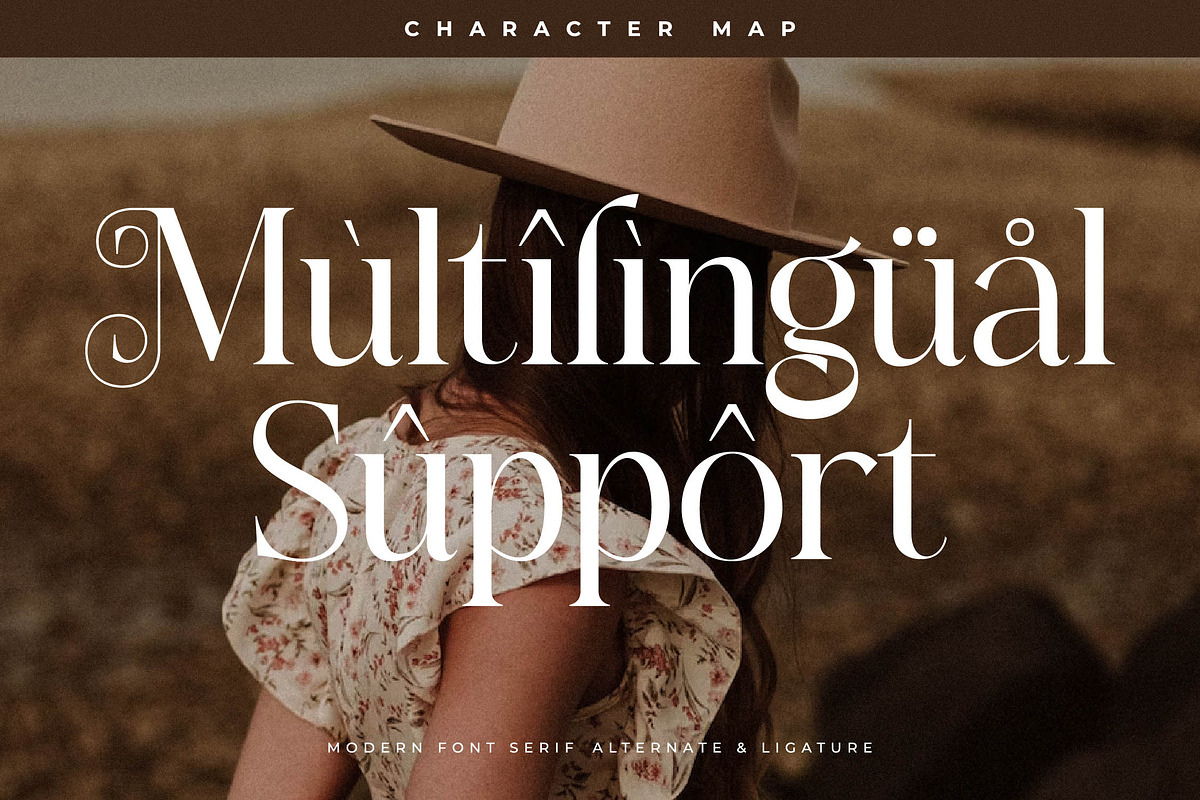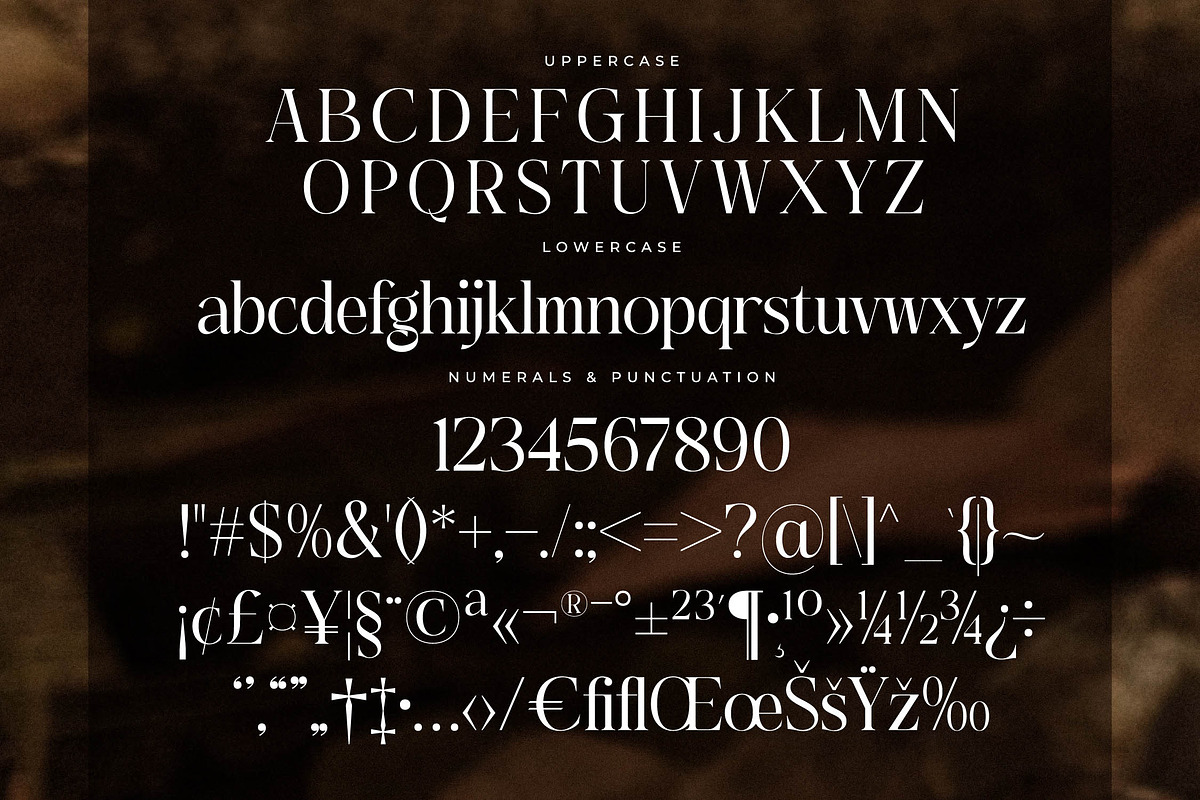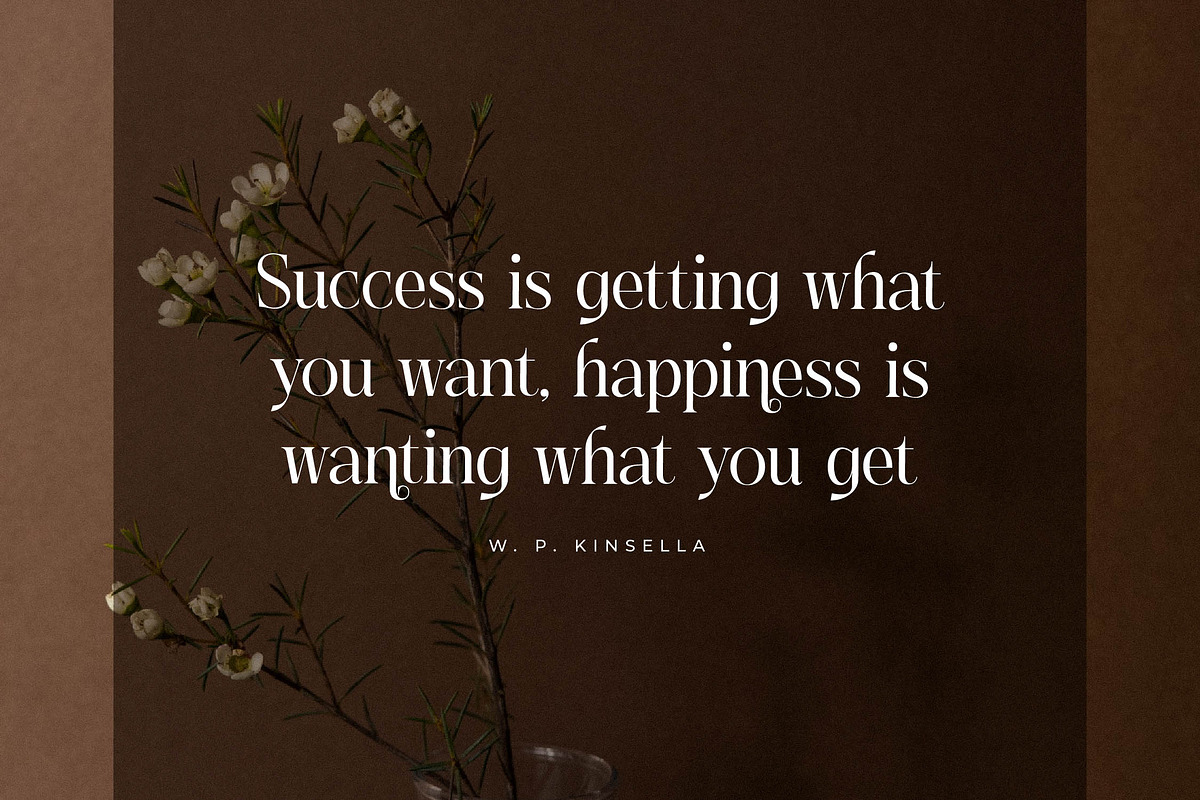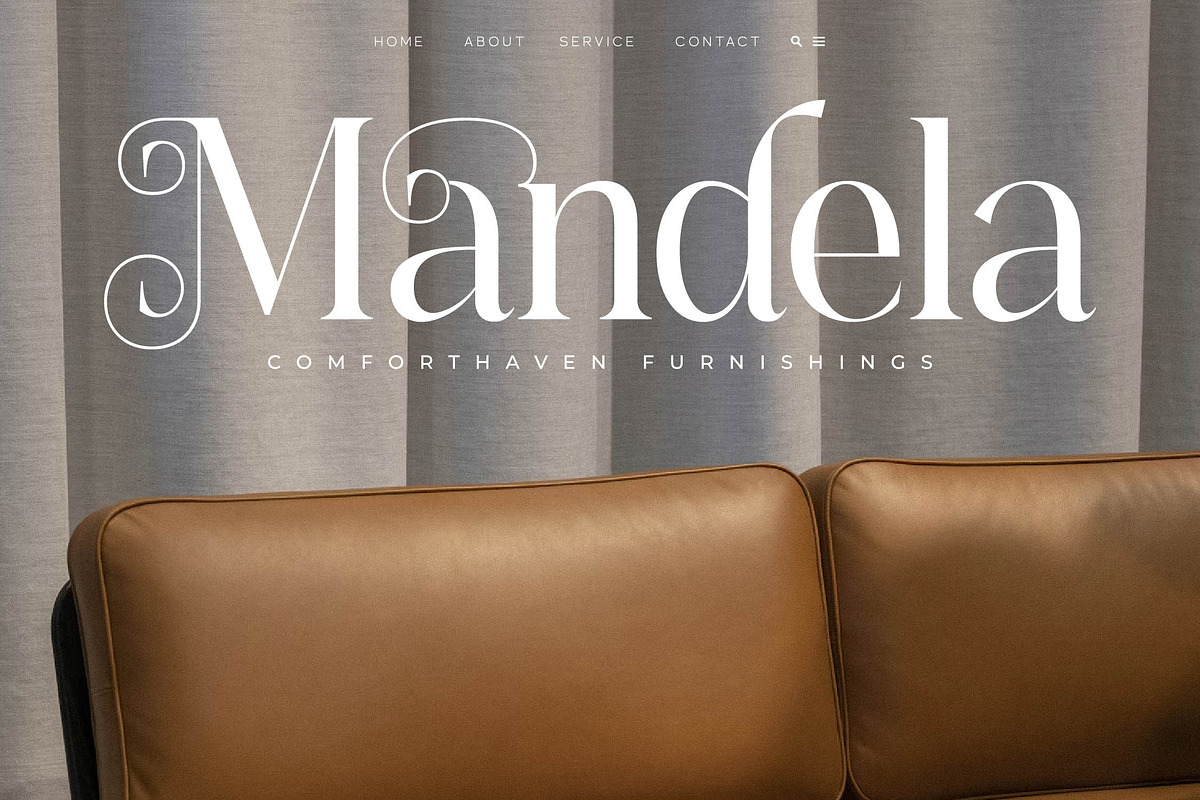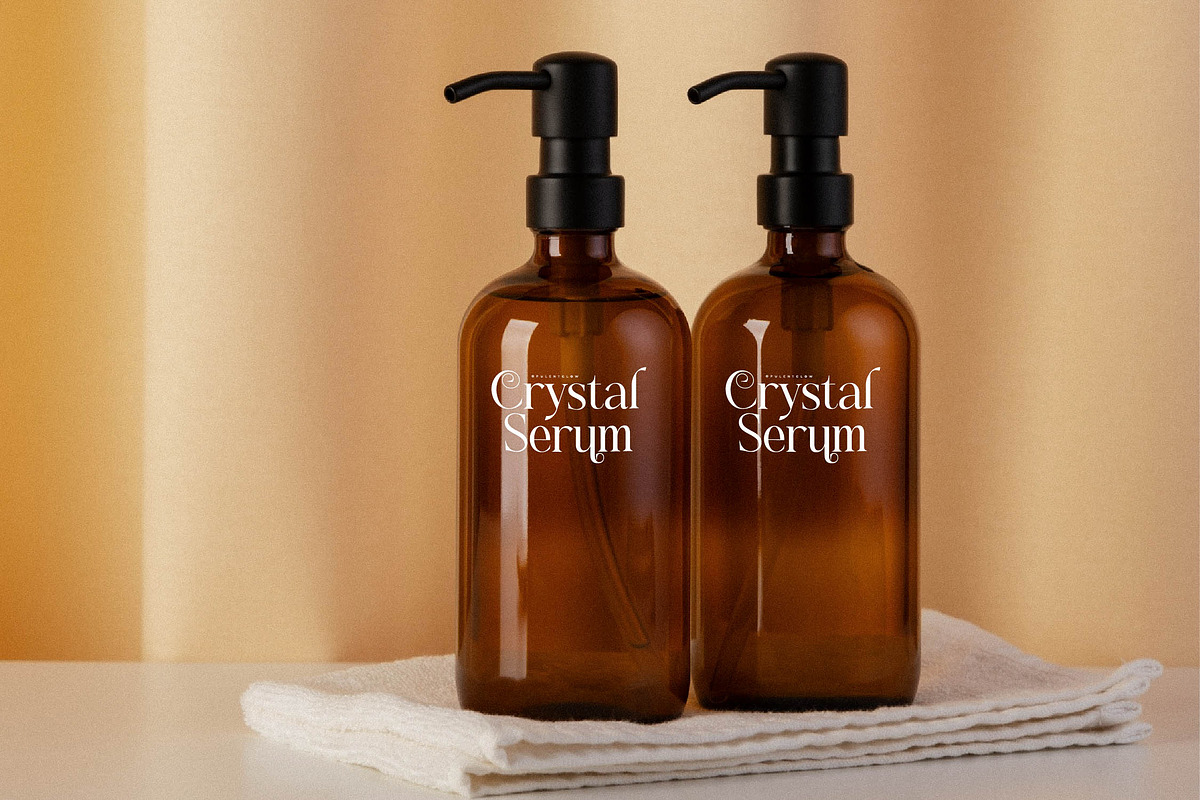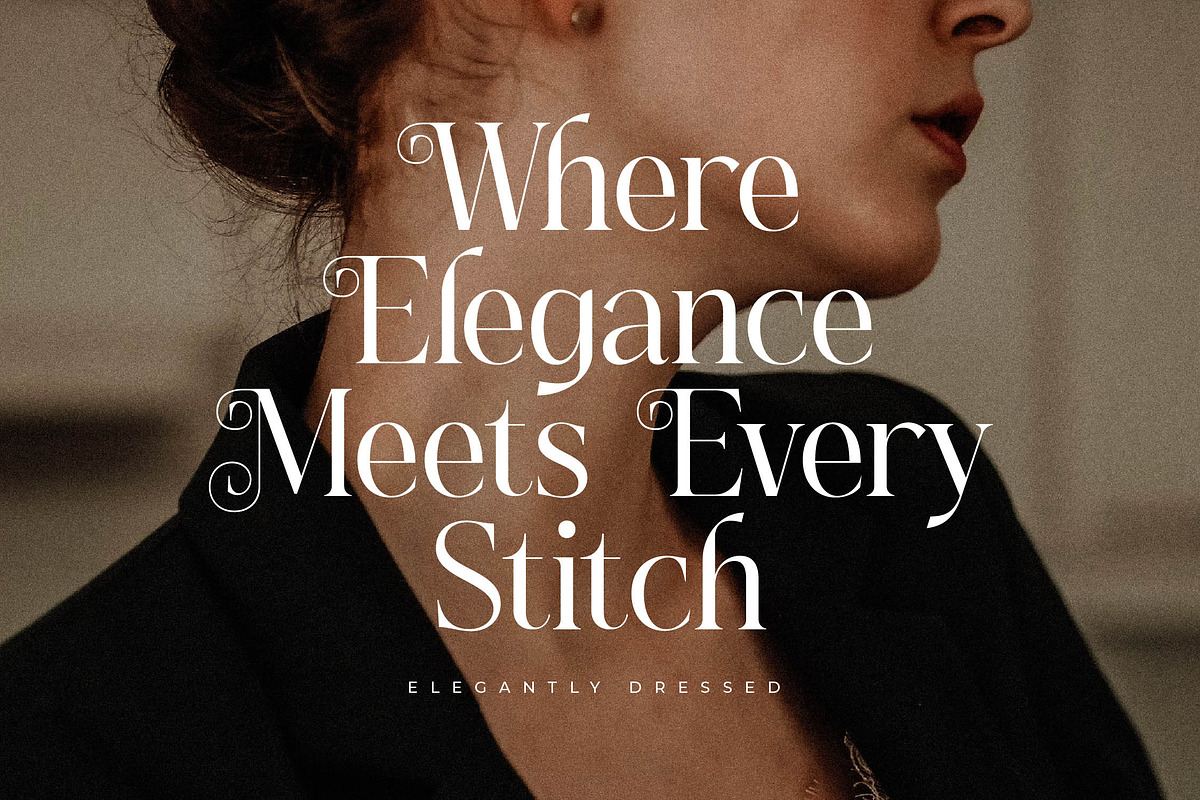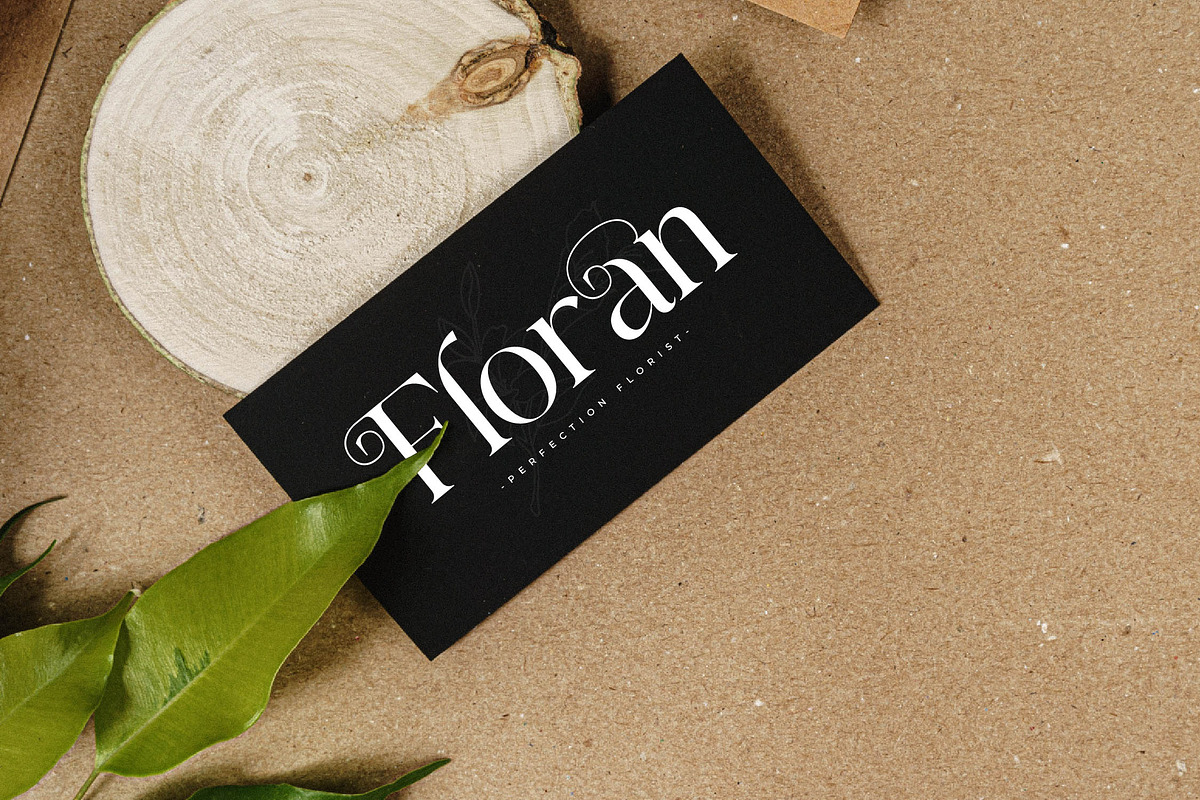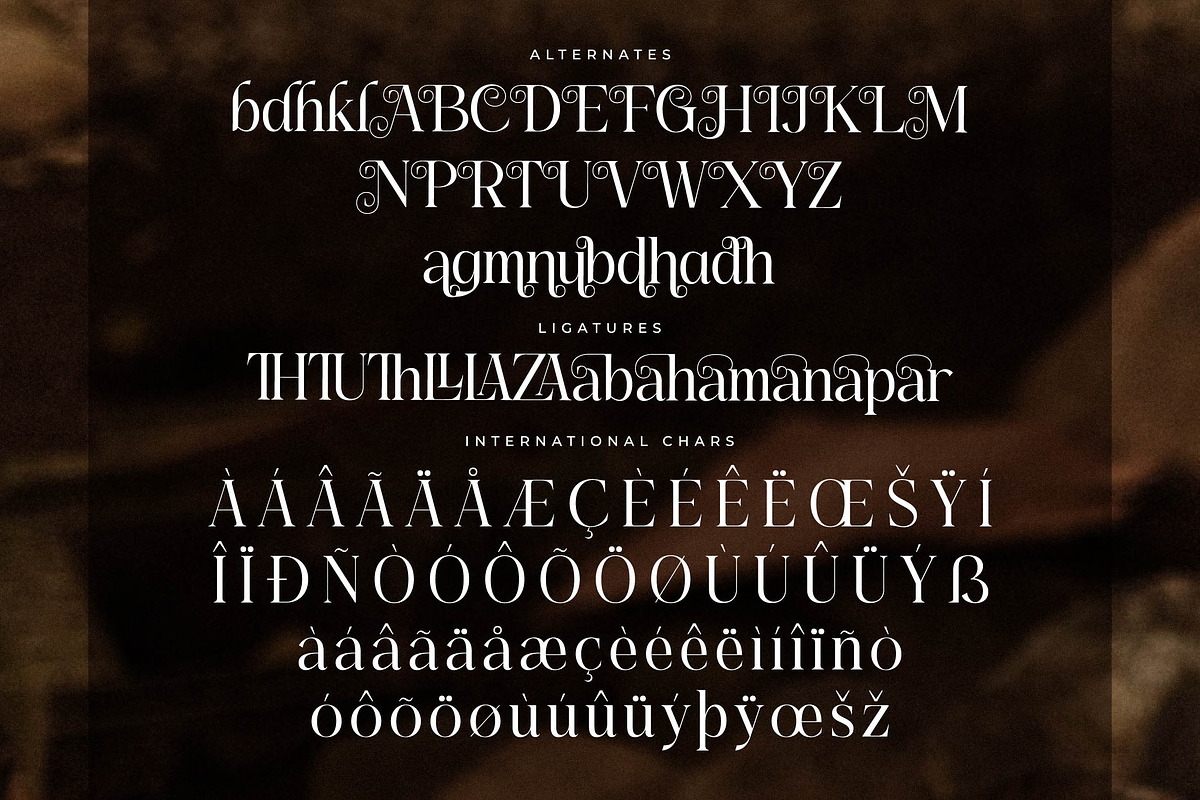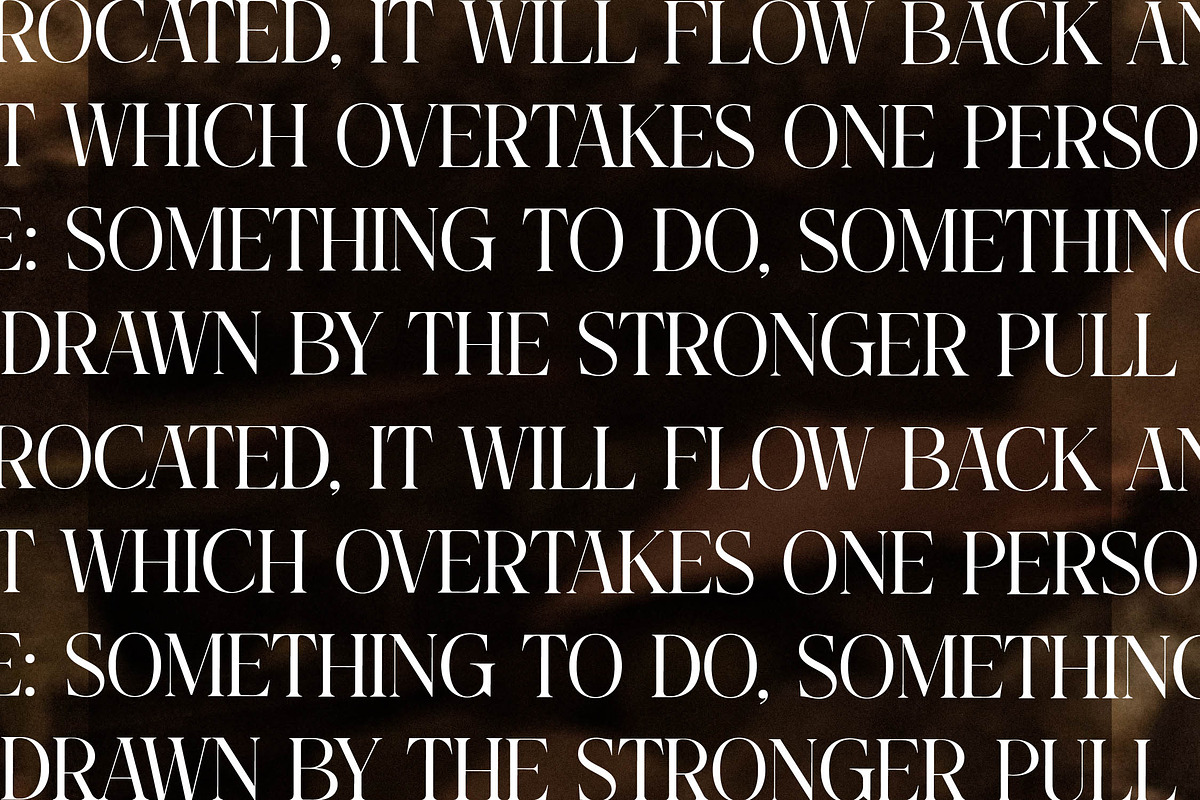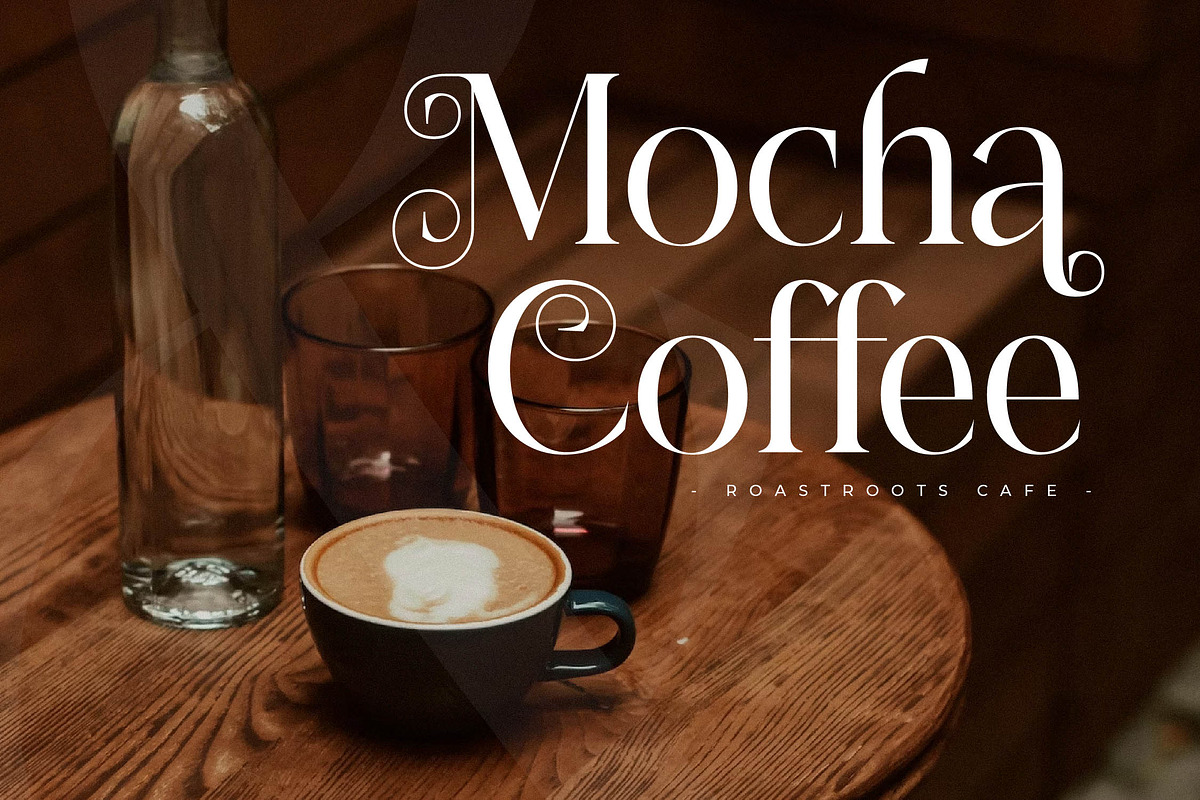
Asgaber Modern Font Serif
Proudly present Asgaber Typeface , created by Storytype, A serif modern and classic typeface that has own unique style & modern look. This typeface is perfect for an elegant & luxury logo, book or movie title design, fashion brand, magazine, clothes, lettering, quotes, and so much more.